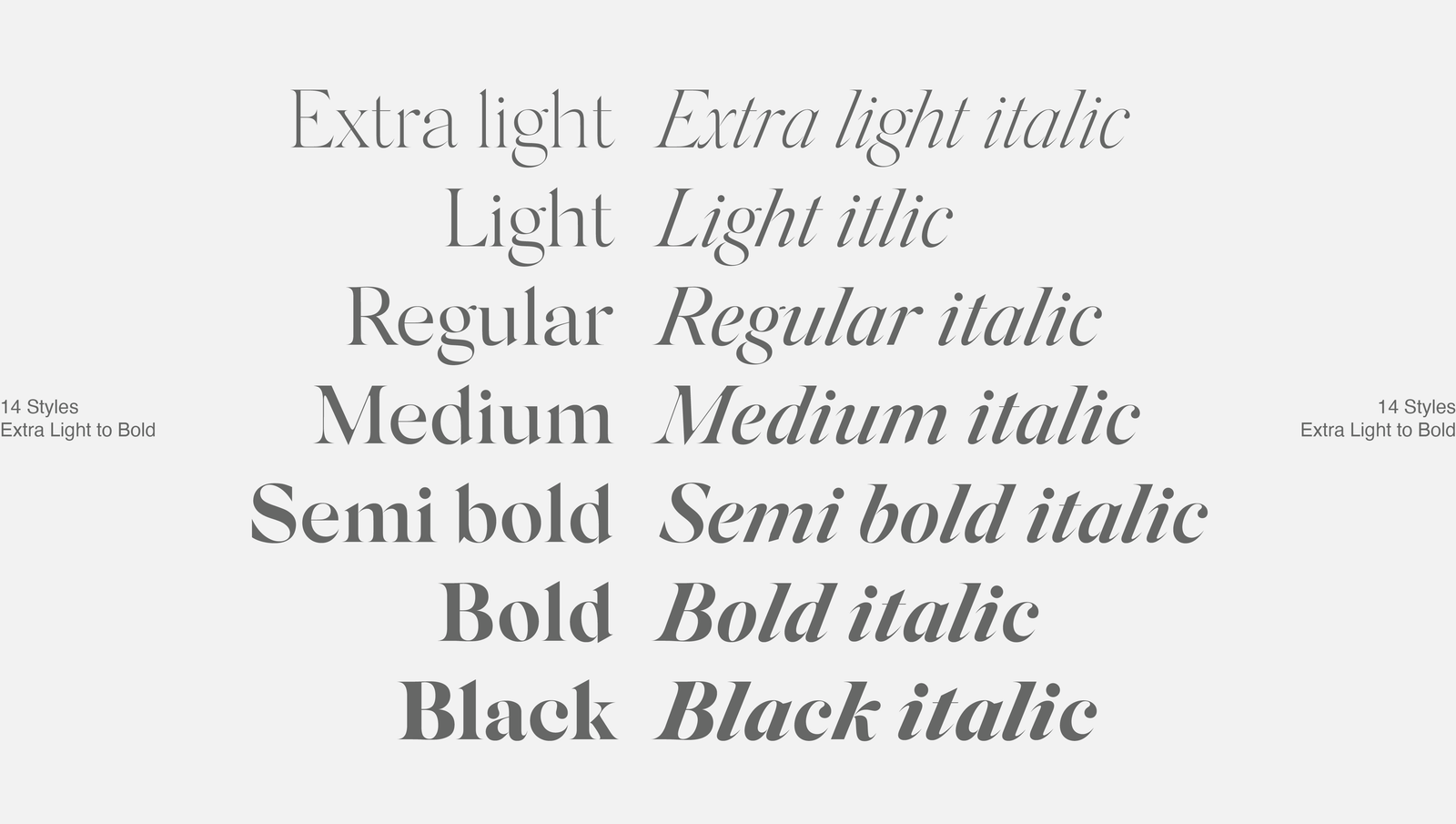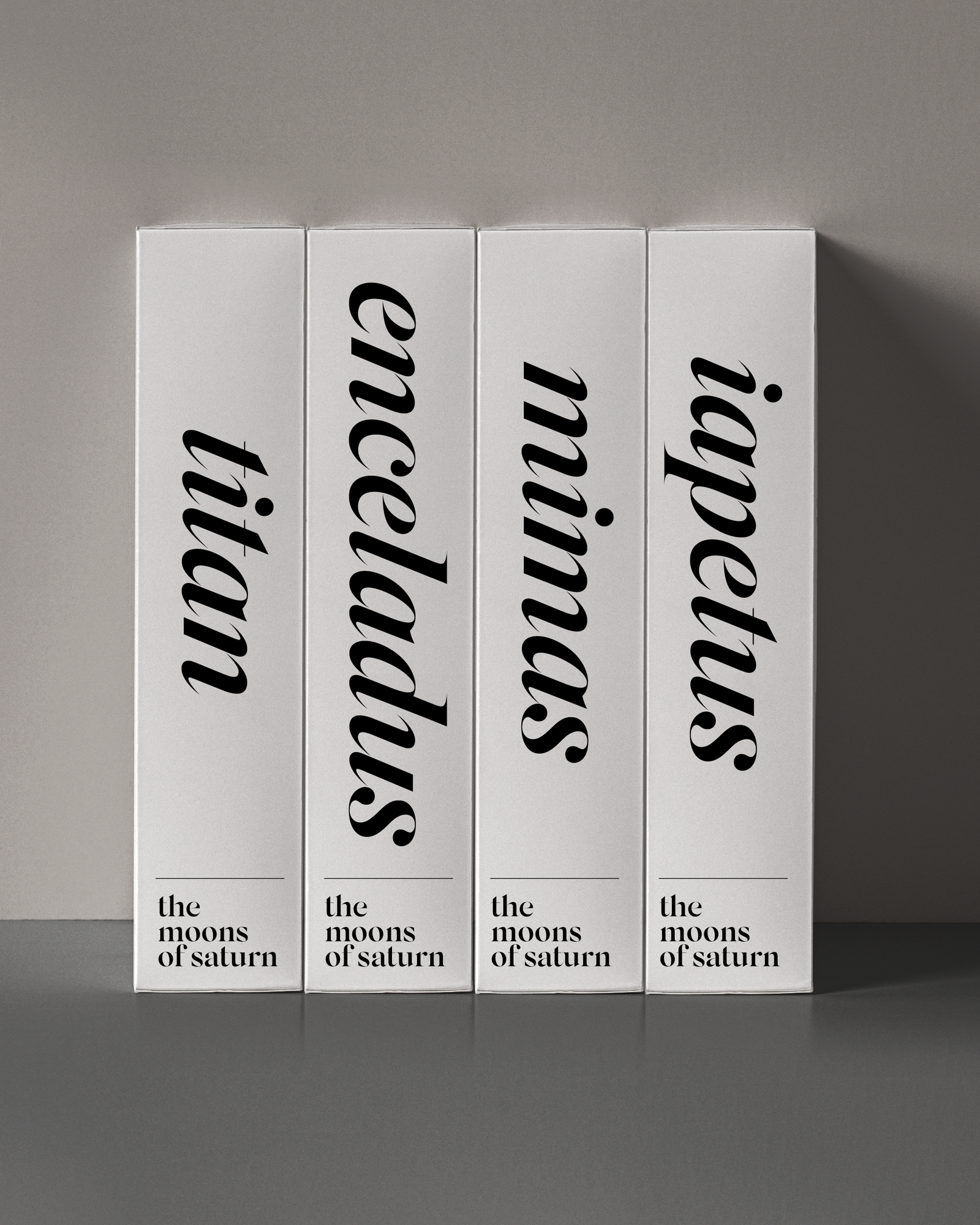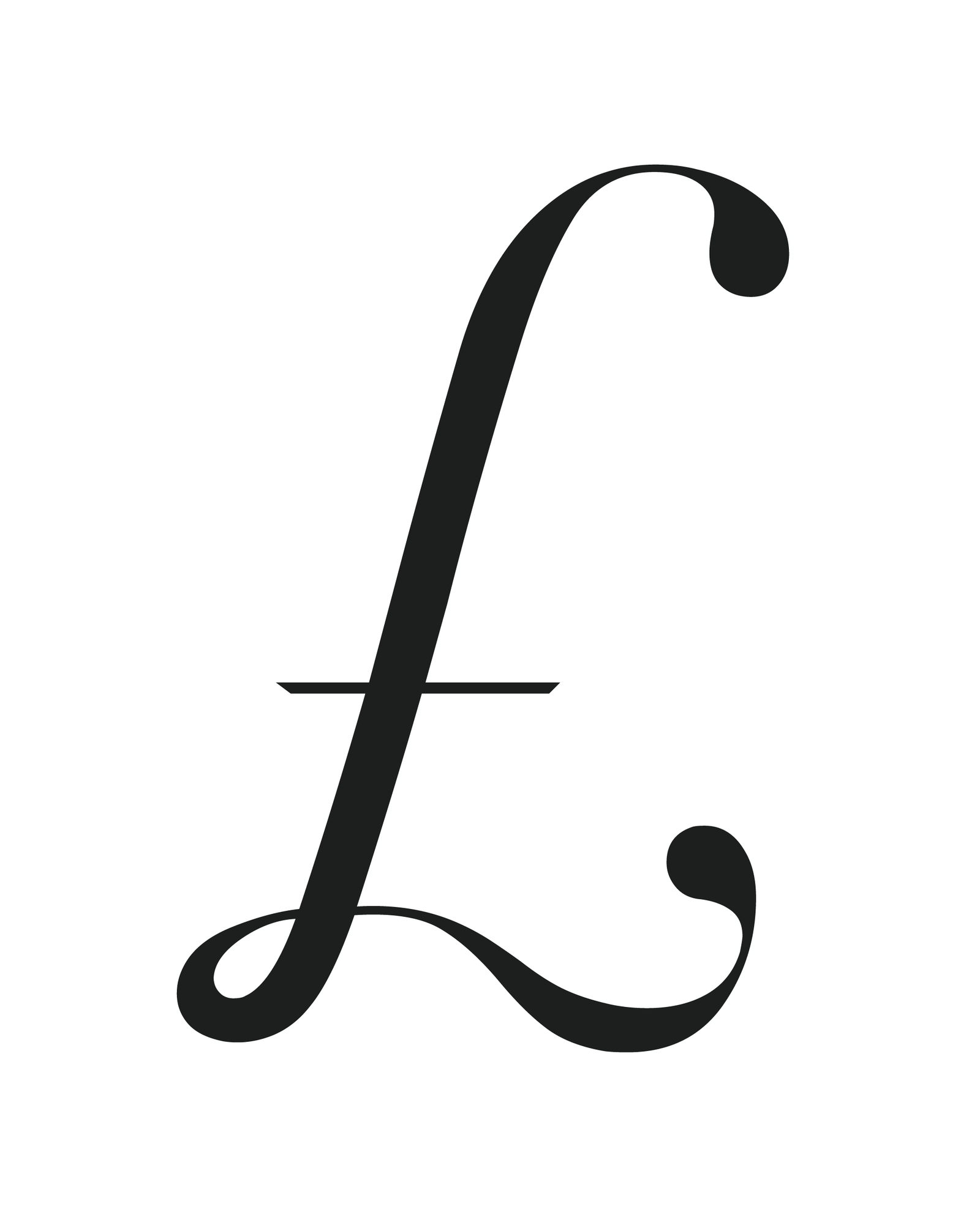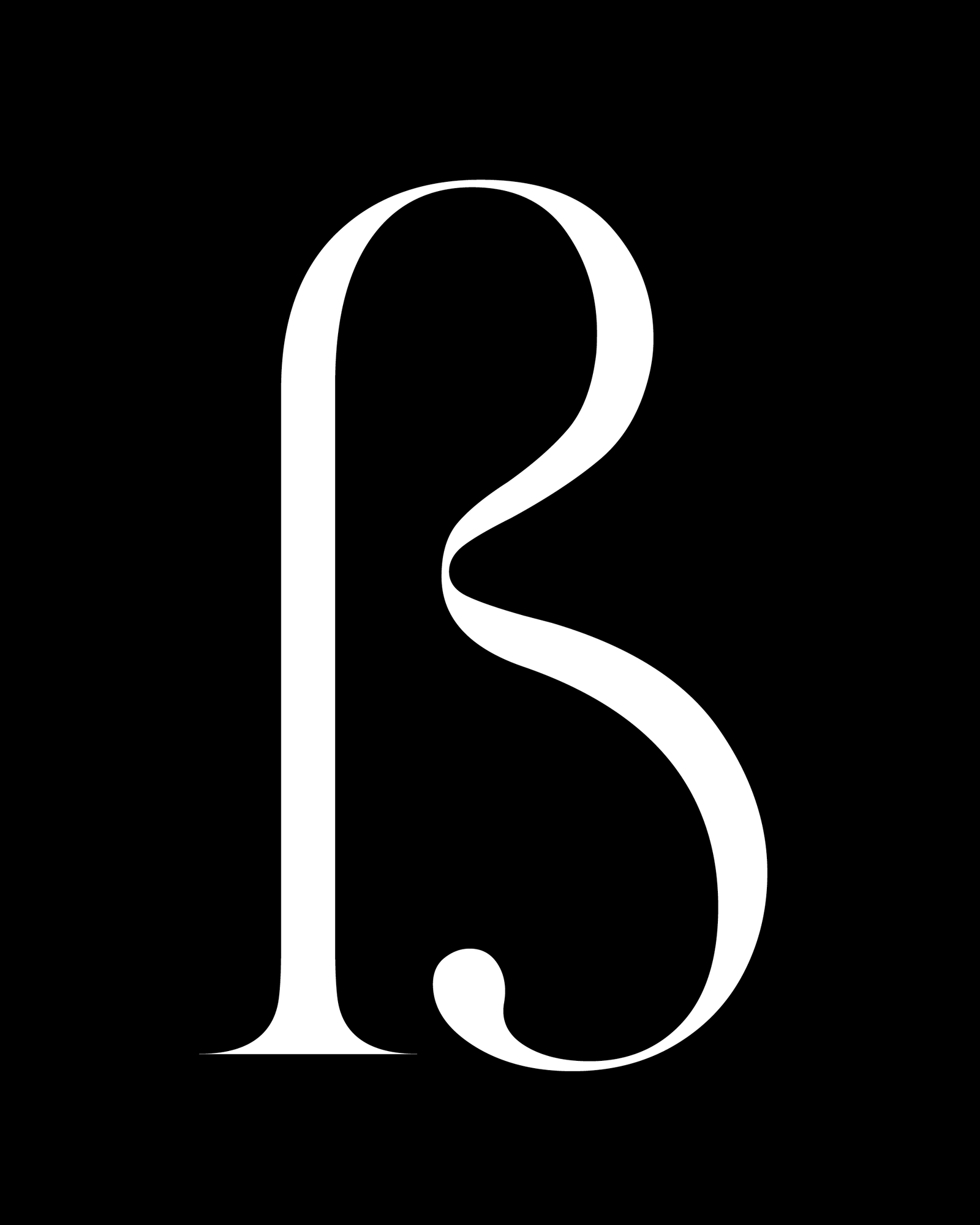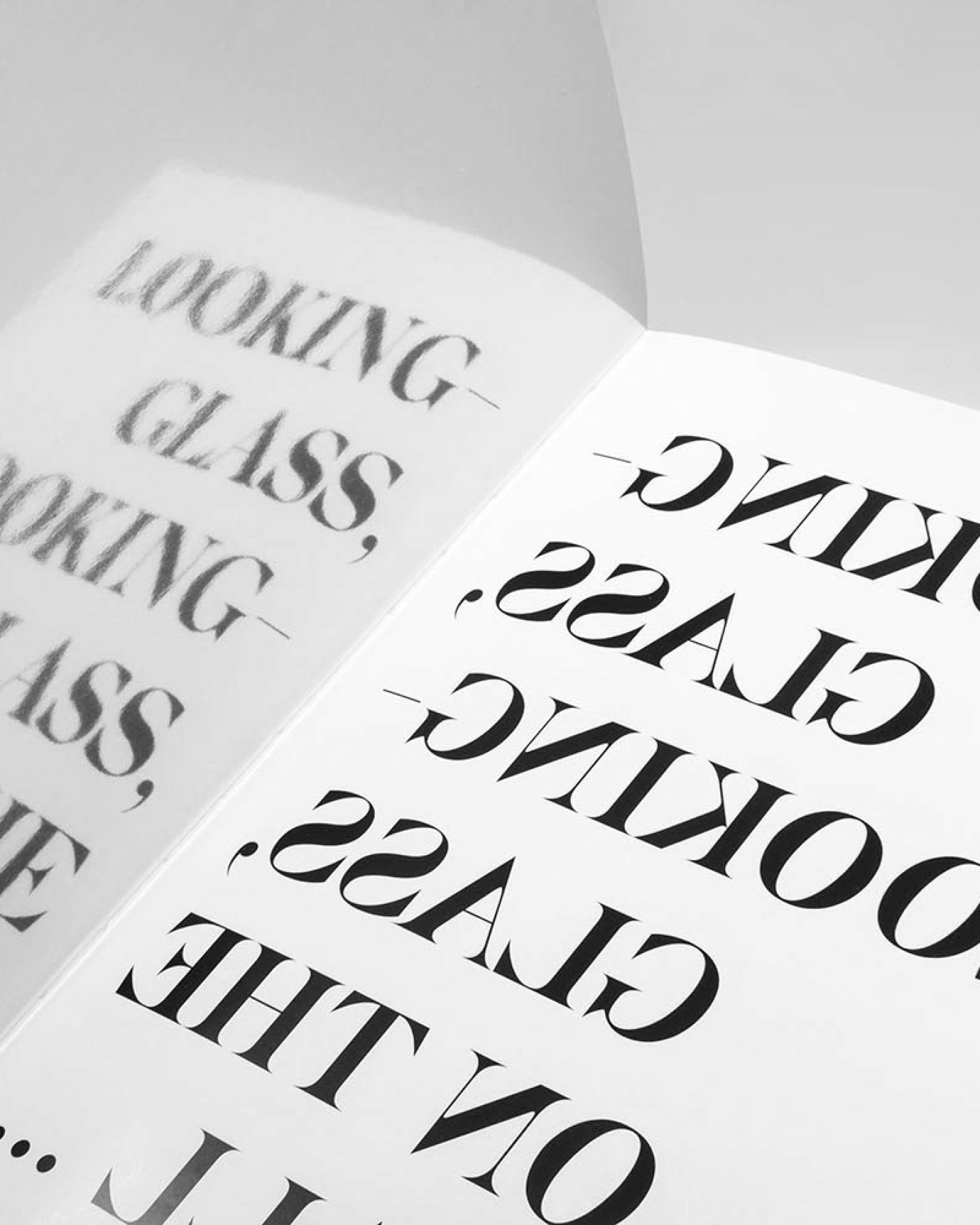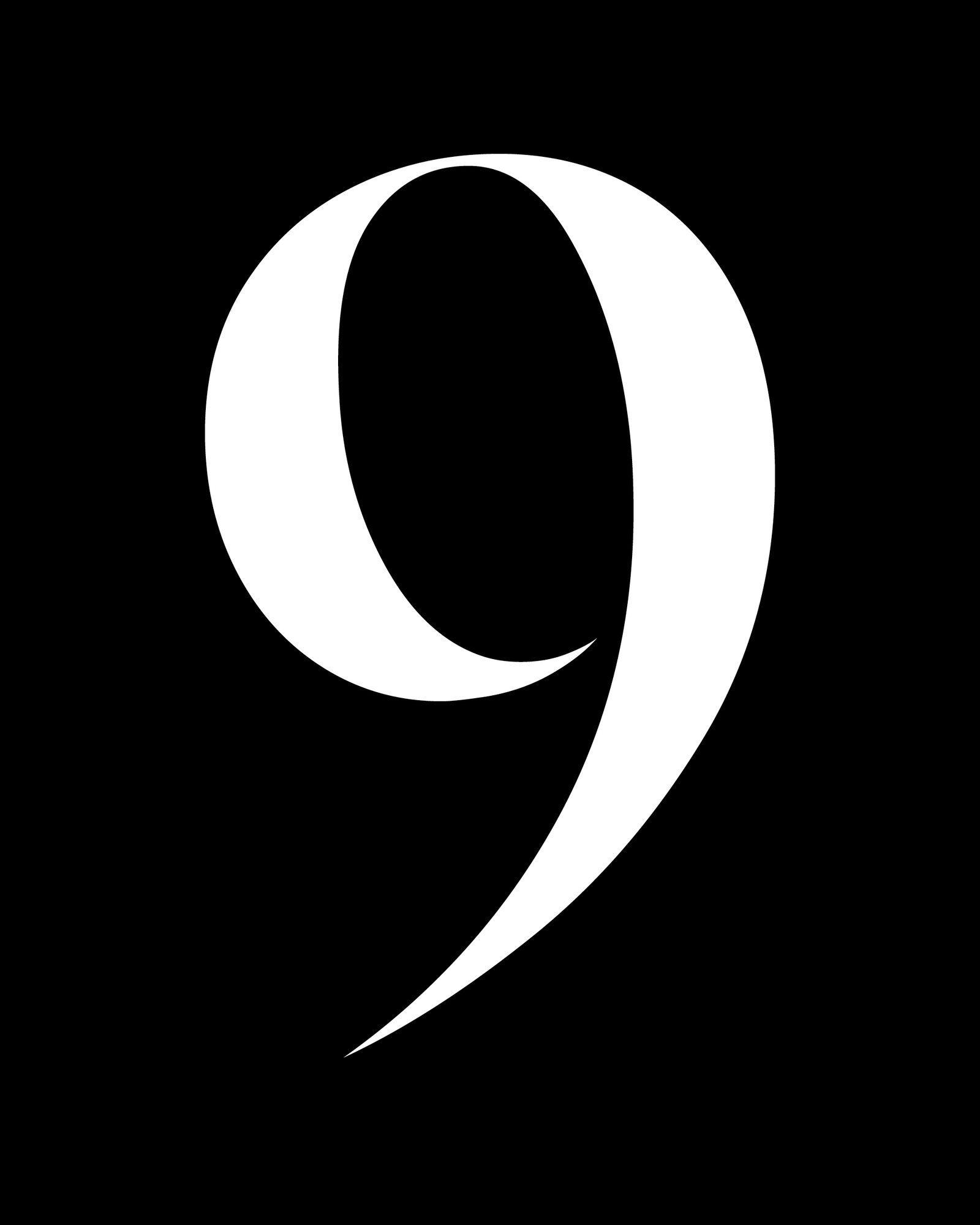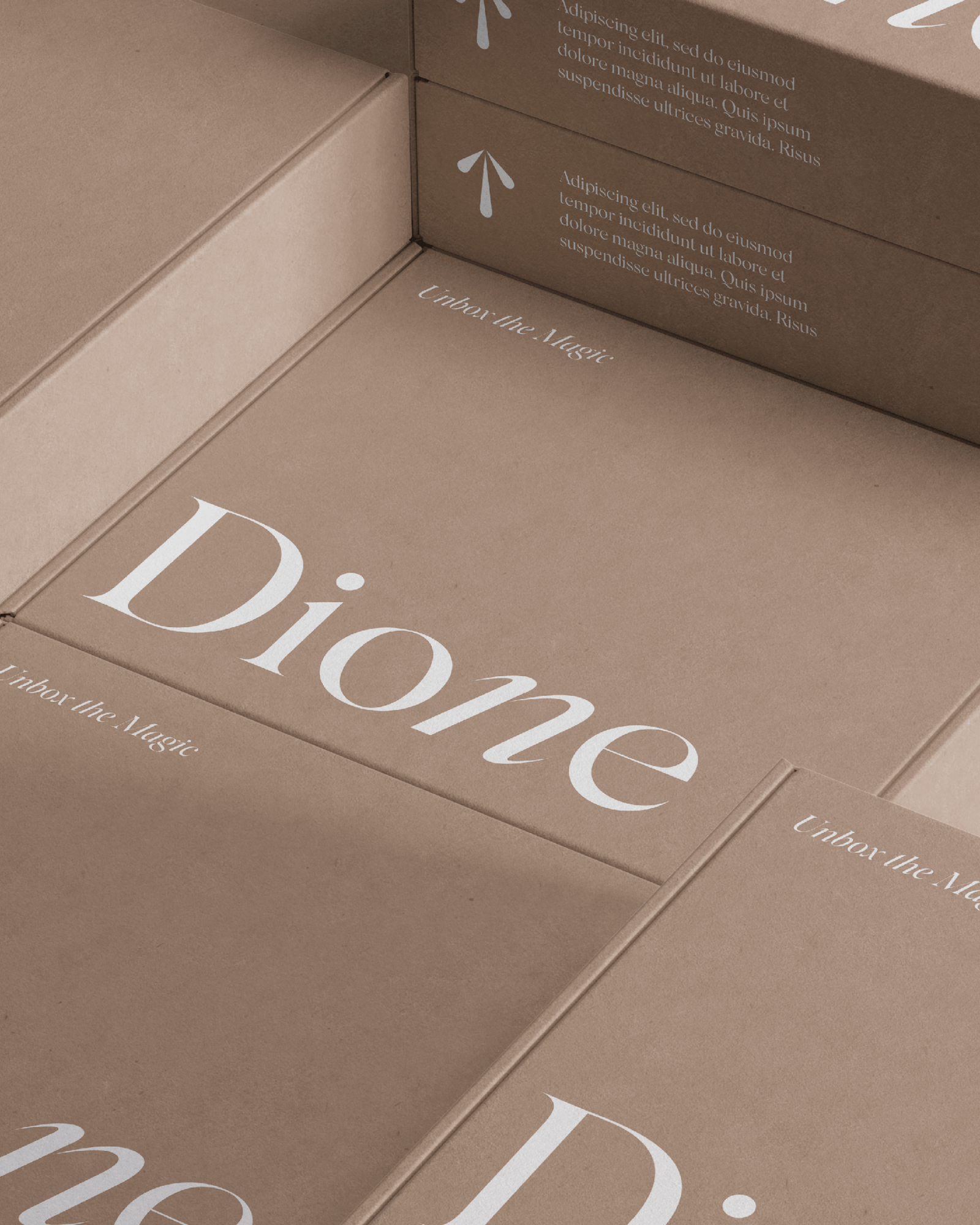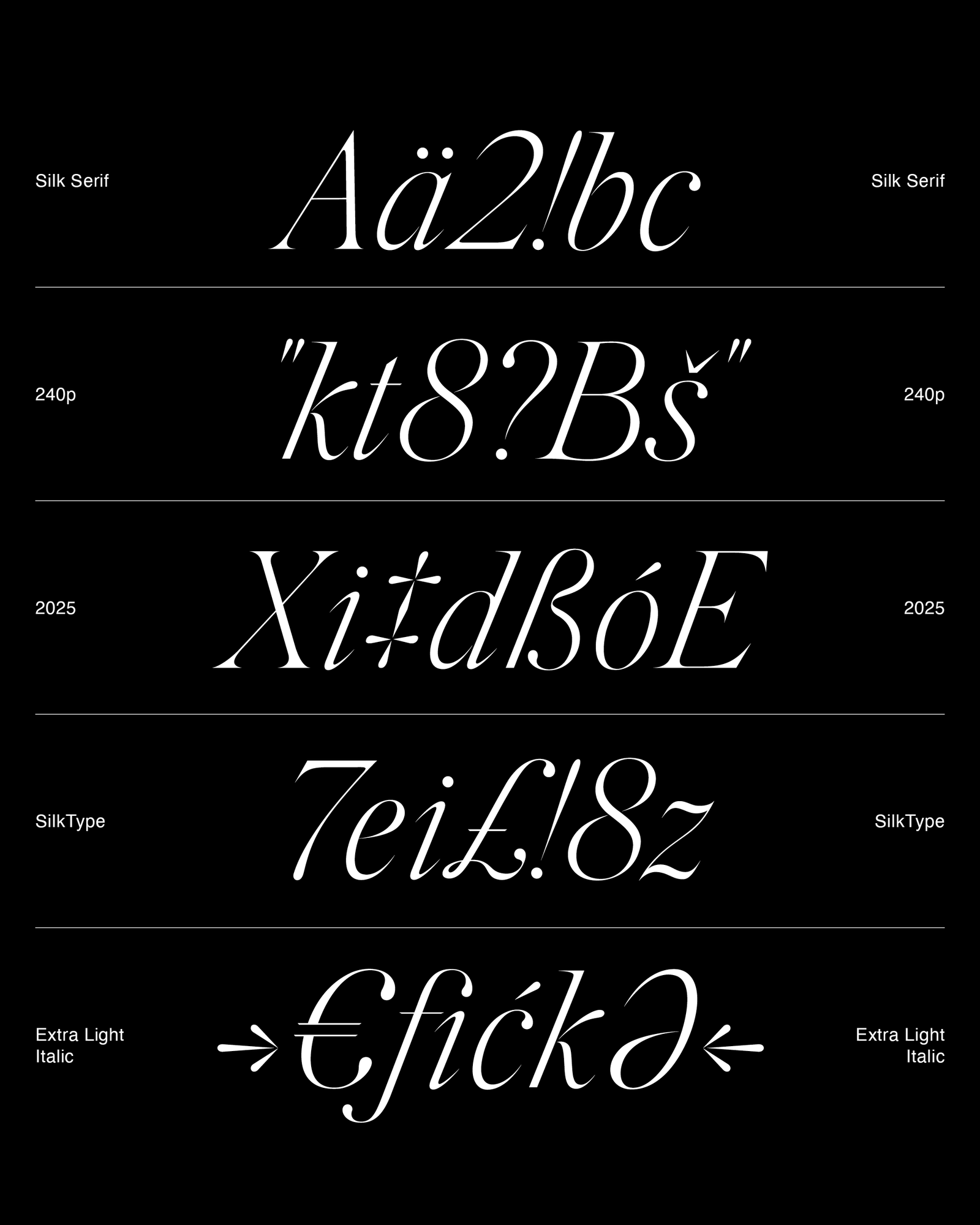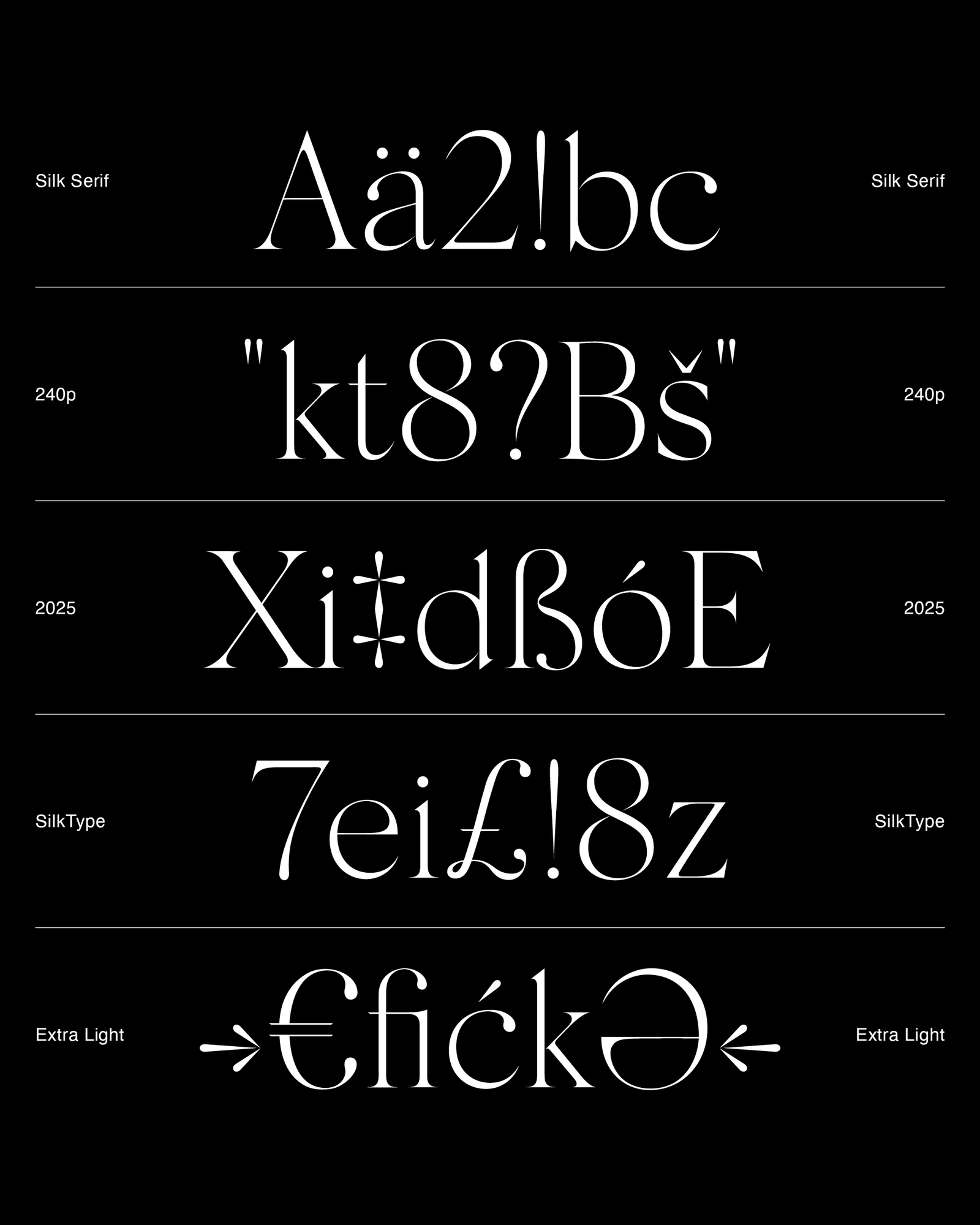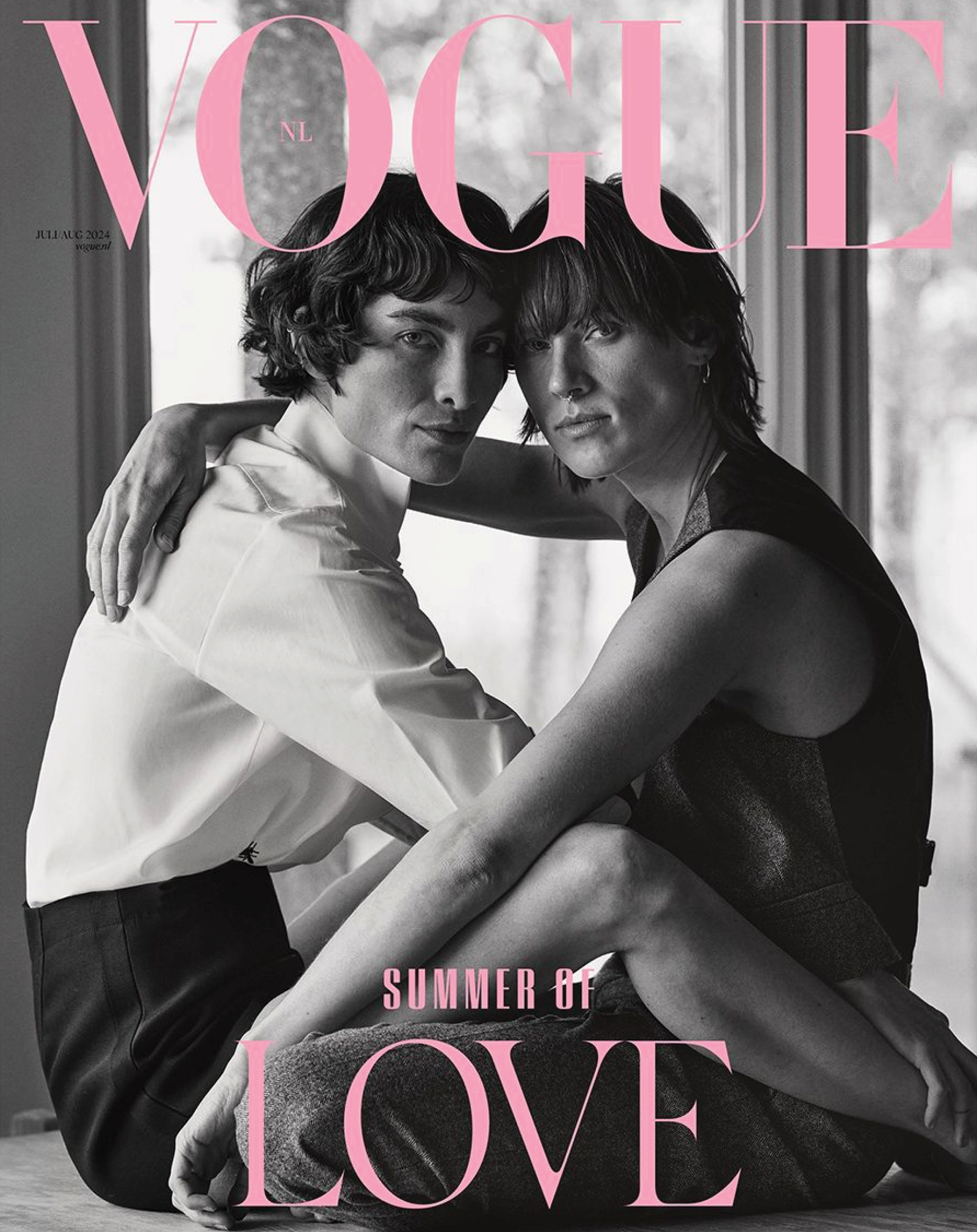
Silk Serif
Silk Serif is a high-contrast serif font designed for fashion, editorial typography and branding, available in 14 styles and as a variable font.
Silk Serif font used on exterior café signage with bold italic serif branding.
Silk Serif variable font used on a black shopping bag with elegant high-contrast typography.
Silk Serif font used on a hand and body cream tube with clean cosmetic packaging.
Silk Serif font used on a woven bath towel label with refined serif branding.
Silk Serif font used on a minimalist Pinot Noir wine label with elegant serif typography.
Silk Serif used in a museum-style editorial brochure with large serif headlines and supporting text.
Silk Serif font used on a minimalist interior studio business card with oversized serif typography.
Silk Serif is a high-contrast typeface with thin, pointy, heavily bracketed serifs, and ball terminals in the appropriate places, as well as bracketed junctions in various letterforms. The main feature of the typeface is the disconnection between the bowls and the stems. However, the bowl is very close to the stem, creating the illusion of connection. Silk is delicate and legible, but above all, it is sophisticated. In 2025, Silk Serif was updated with refined forms, improved spacing, smoother italics, and the addition of standard ligatures and decorative shapes, further enhancing its versatility and elegance.
Rakel Tómasdóttir
VOGUE Netherlands